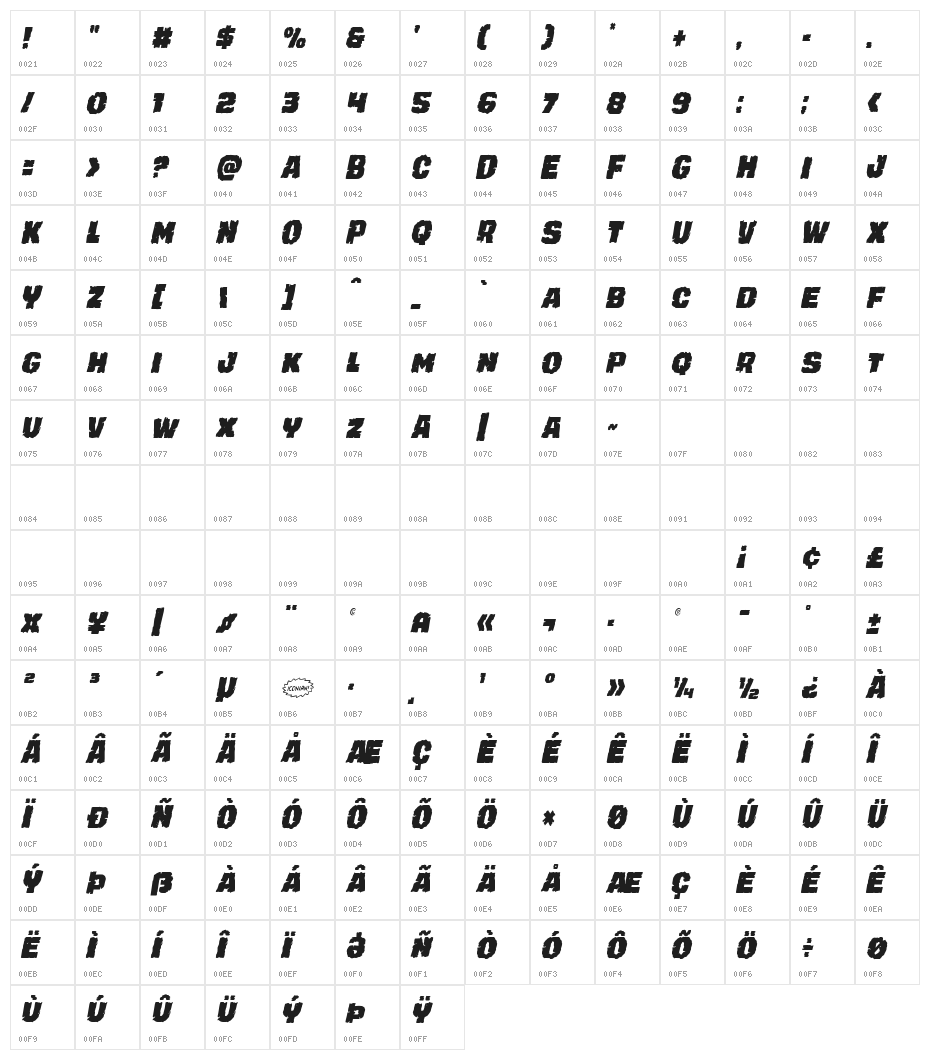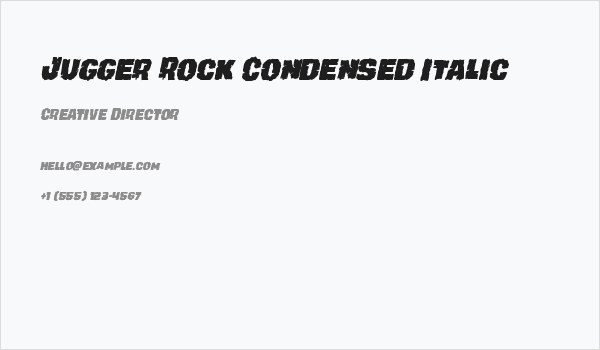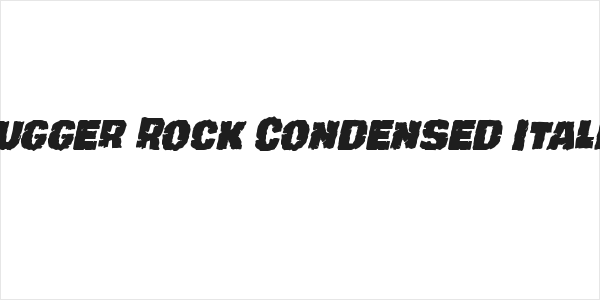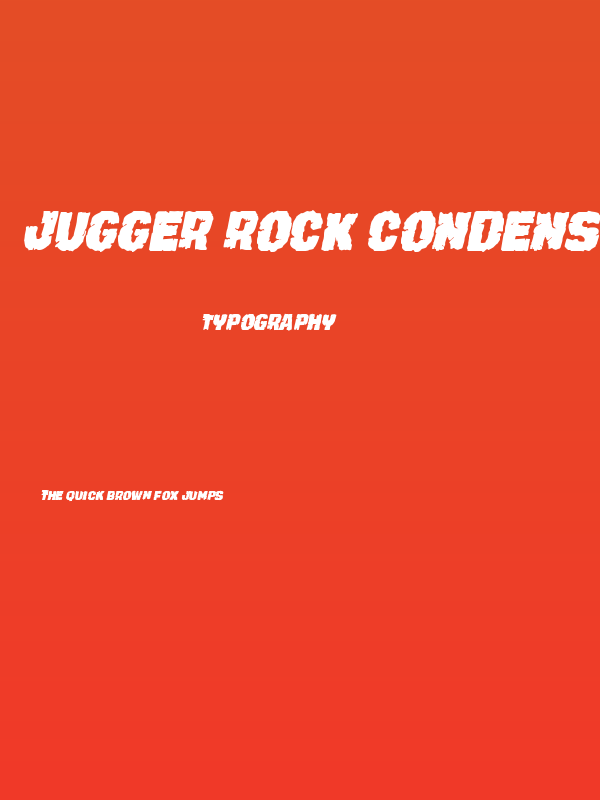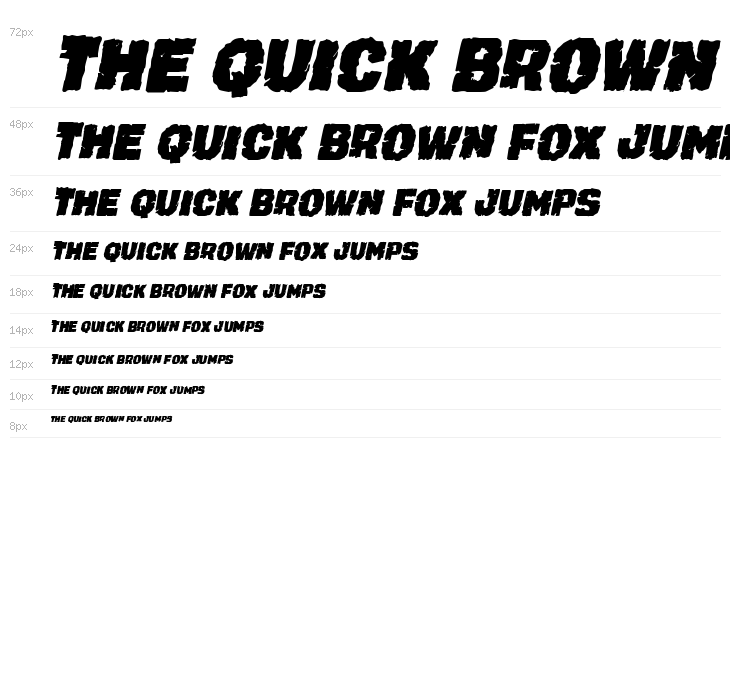
Jugger Rock Condensed Italic Font
Jugger Rock Condensed Italic Description
This font features a bold and rugged design with a condensed and italicized style. The characters have a distressed, rock-like texture that gives them a dynamic and energetic appearance. The uppercase and lowercase letters maintain a consistent weight, while the numbers and special characters follow the same bold and textured aesthetic. The font's unique style makes it stand out, with each character appearing as if it has been carved from stone, adding a sense of strength and durability.
Proposed ProjectsIdeal for music album covers, event posters, or branding for extreme sports and adventure-themed projects.